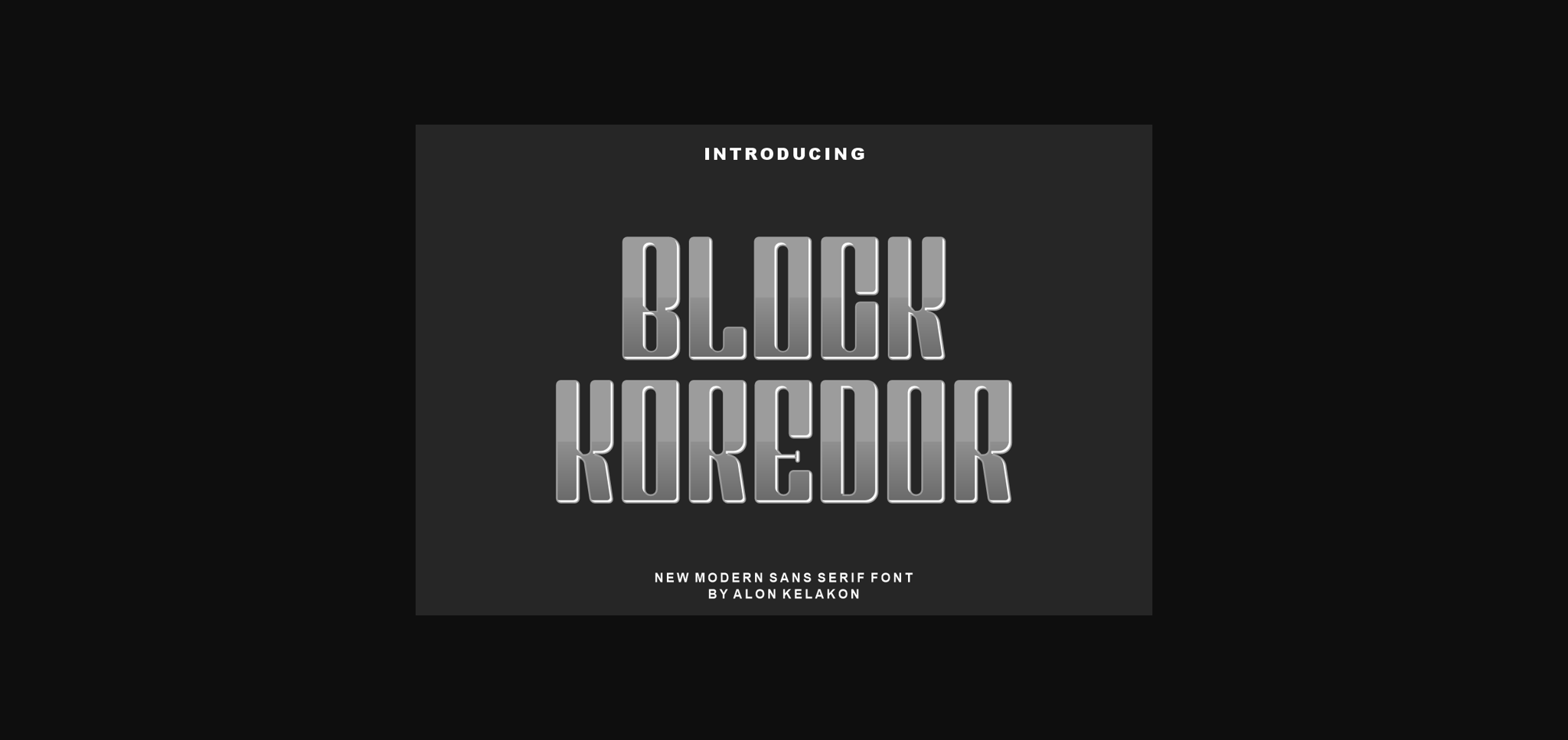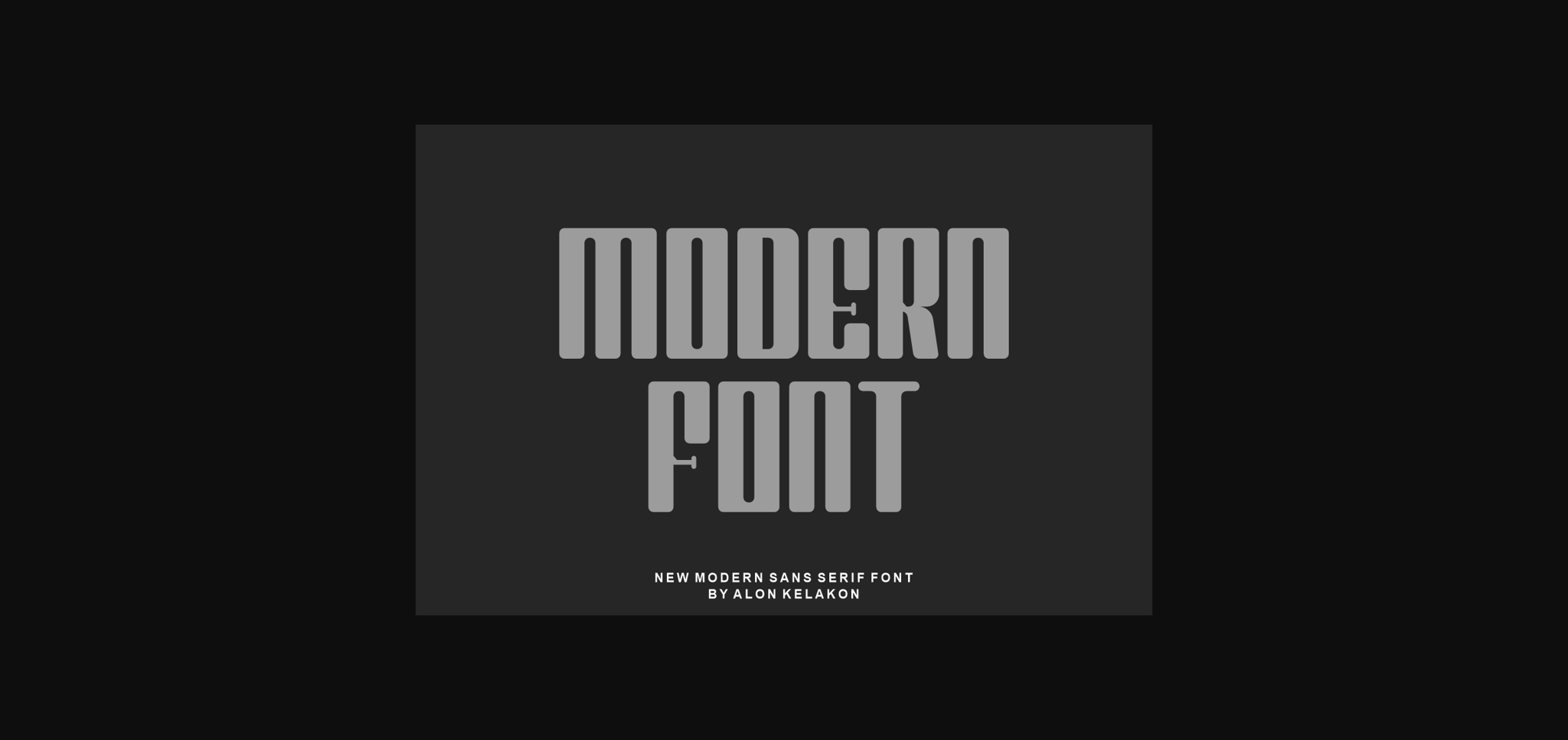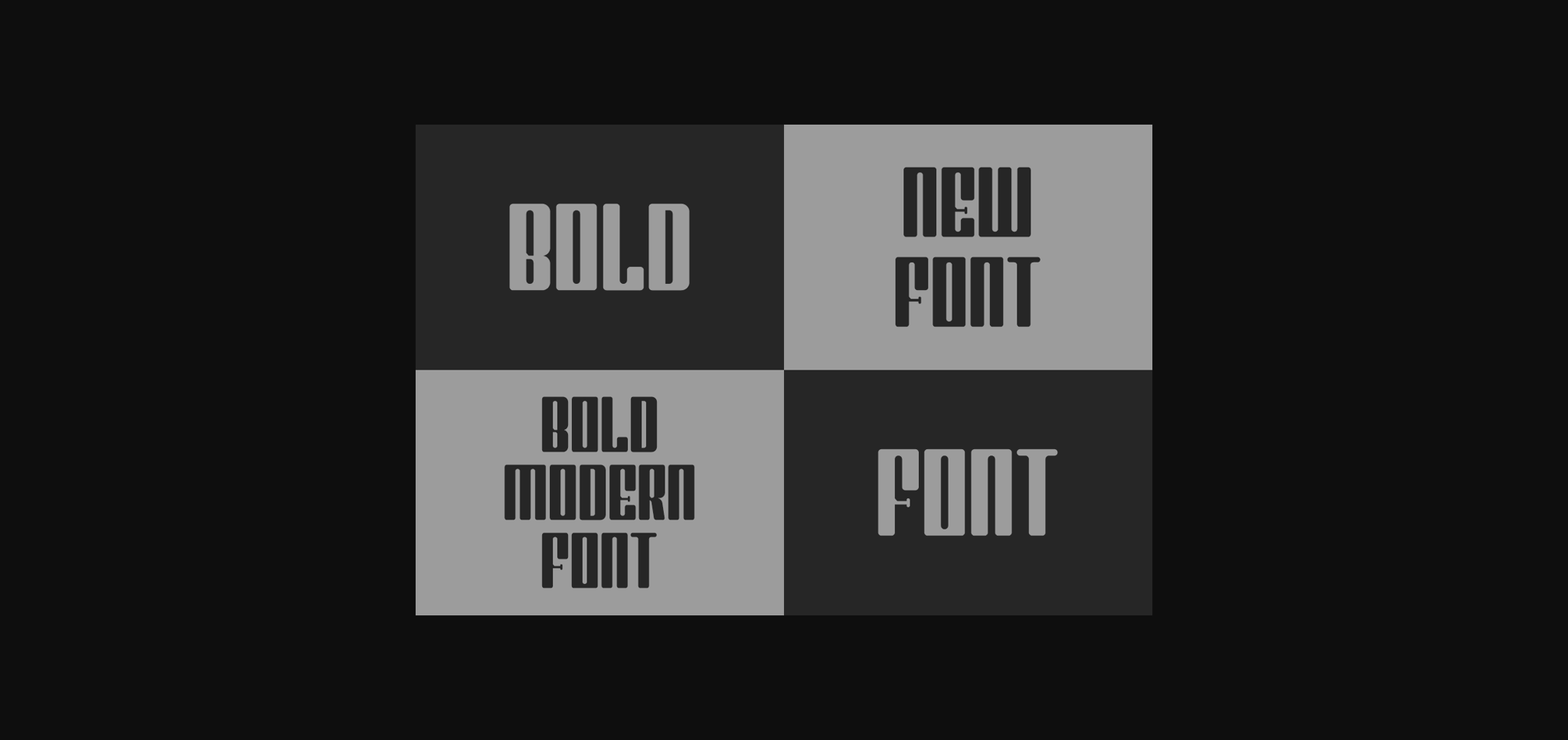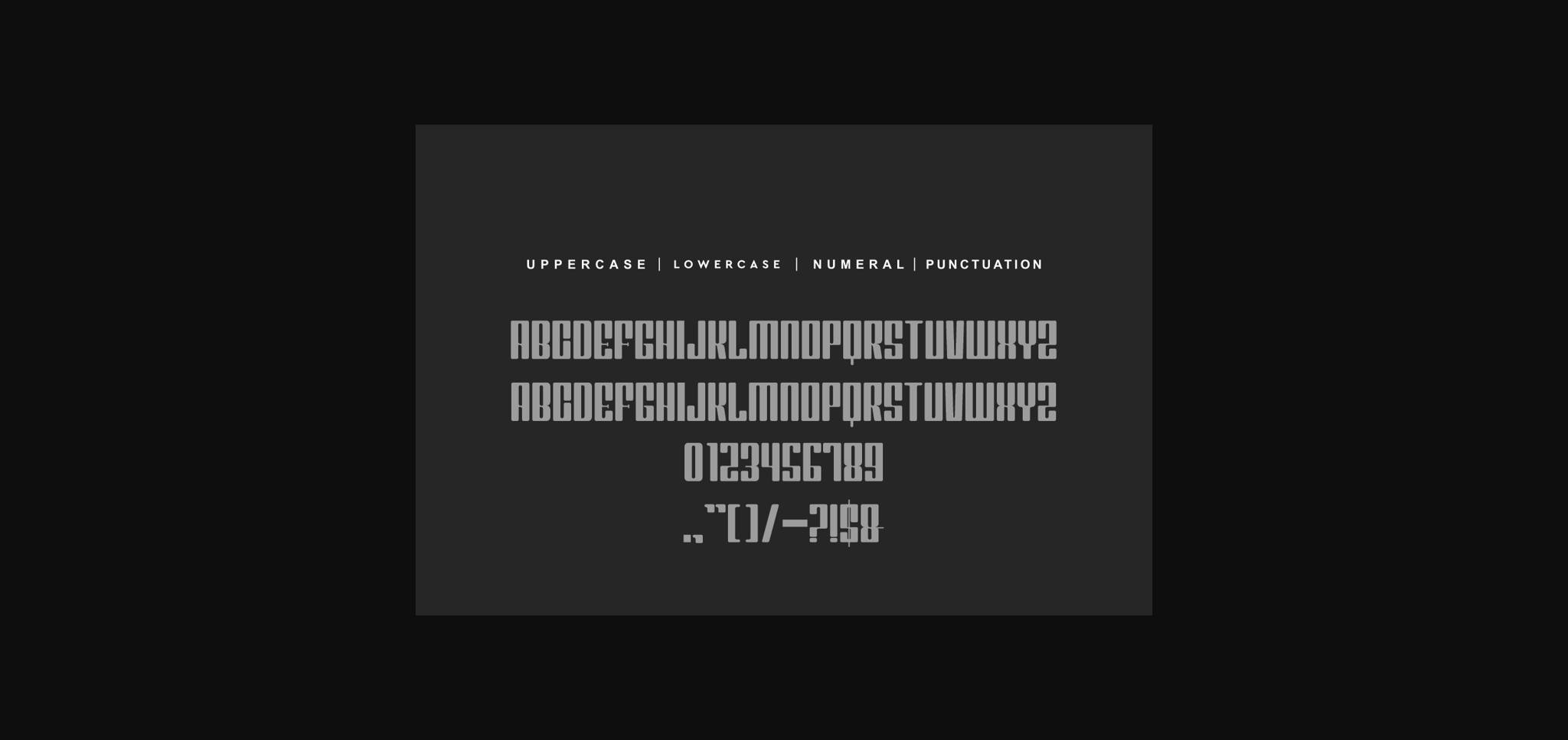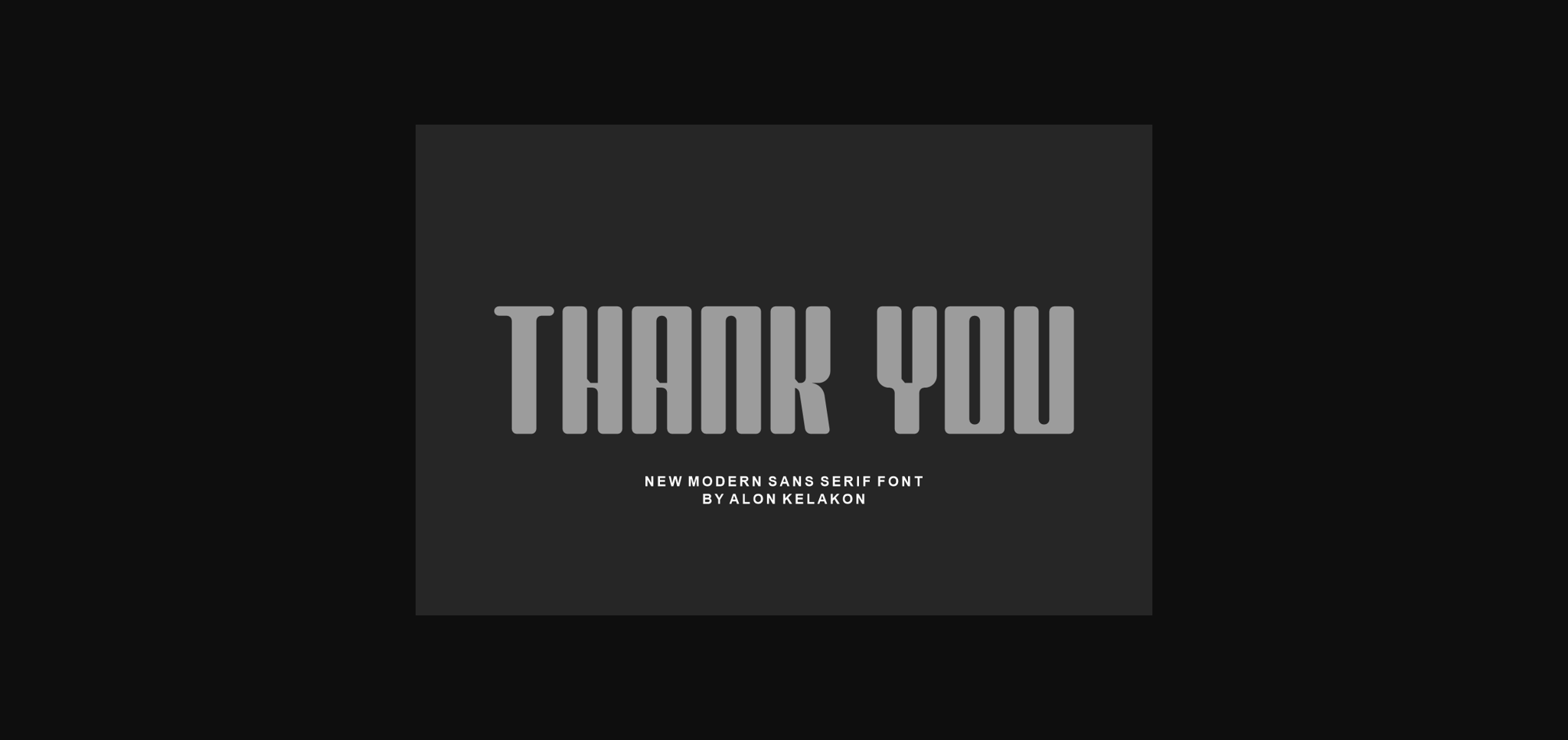
Block Koredor Font
About Block Koredor Font
Block Koredor is a cool and modern sans serif font. Add it confidently to your projects and you will love the results!